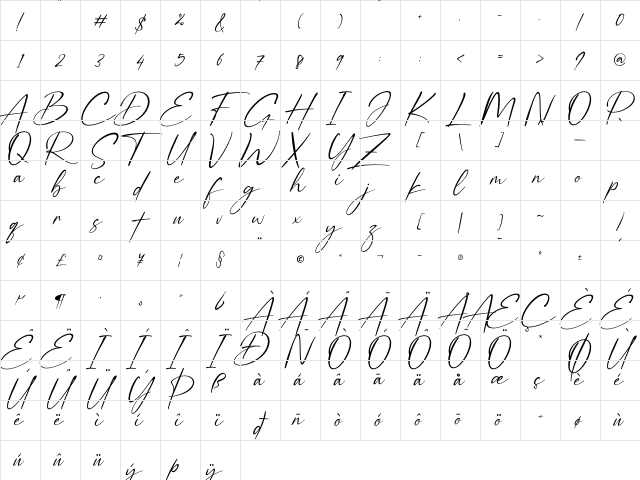
Complete Halfmoon Regular glyph index. Displaying only characters natively supported by Halfmoon Regular font.
Halfmoon is a composed and adaptable typeface that performs quietly and consistently across a wide range of design contexts.